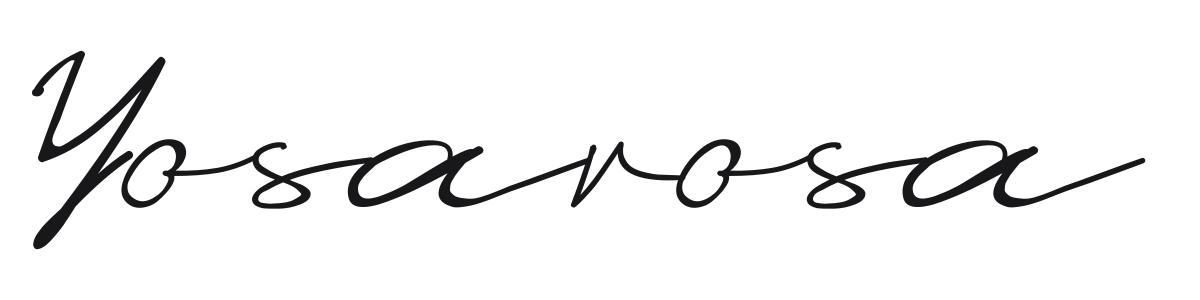
Yosarosa
Yosarosa is an ultra-thin signature-style script that captures the loose, flowing energy of handwritten ink. Long connecting strokes and free-spirited letterforms give it a personal, spontaneous quality that works well at large sizes for logos and editorial headlines. The extreme lightness keeps it refined rather than casual.